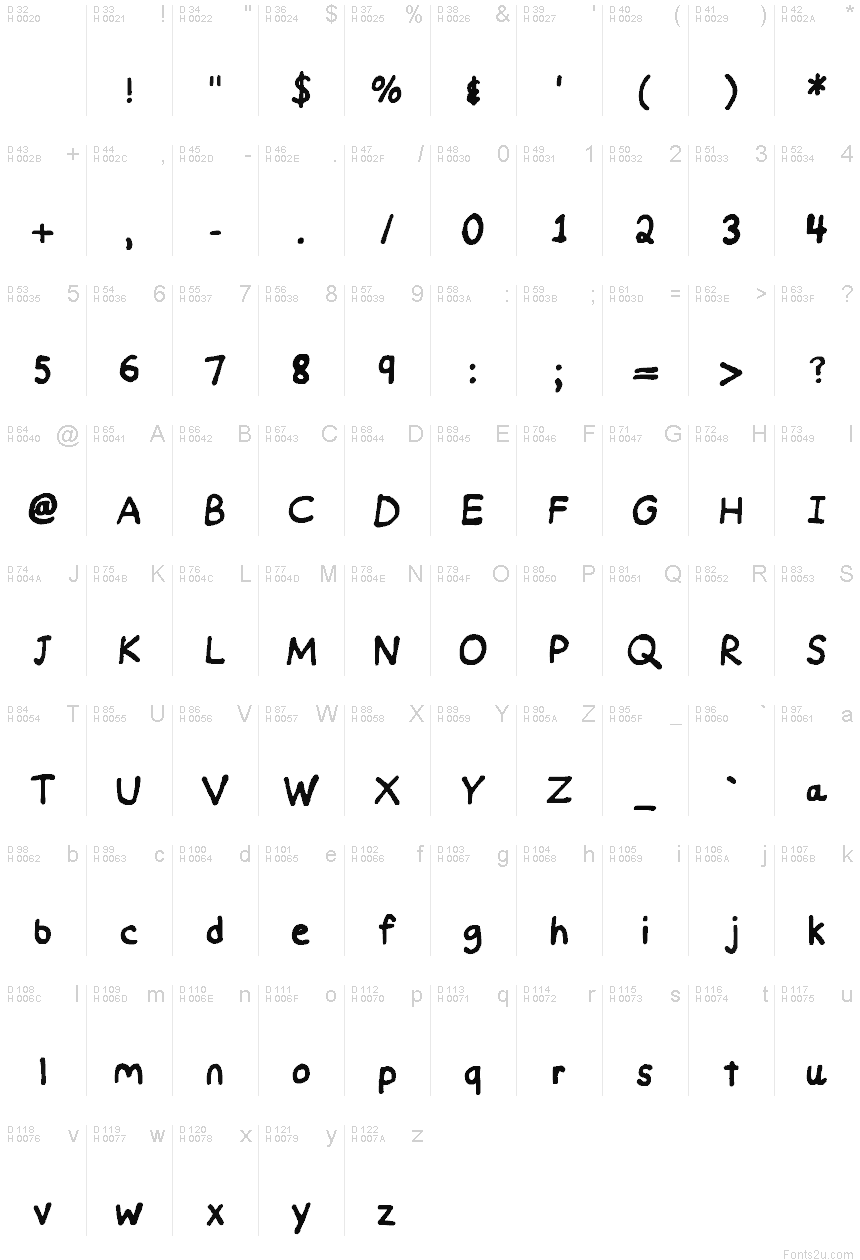
Handwritten Nat29 Font Medium
The second font I've created ever (my first one got lost, but it sucked anyway). Used in a lot of my cartoons. Should be updated at some point.